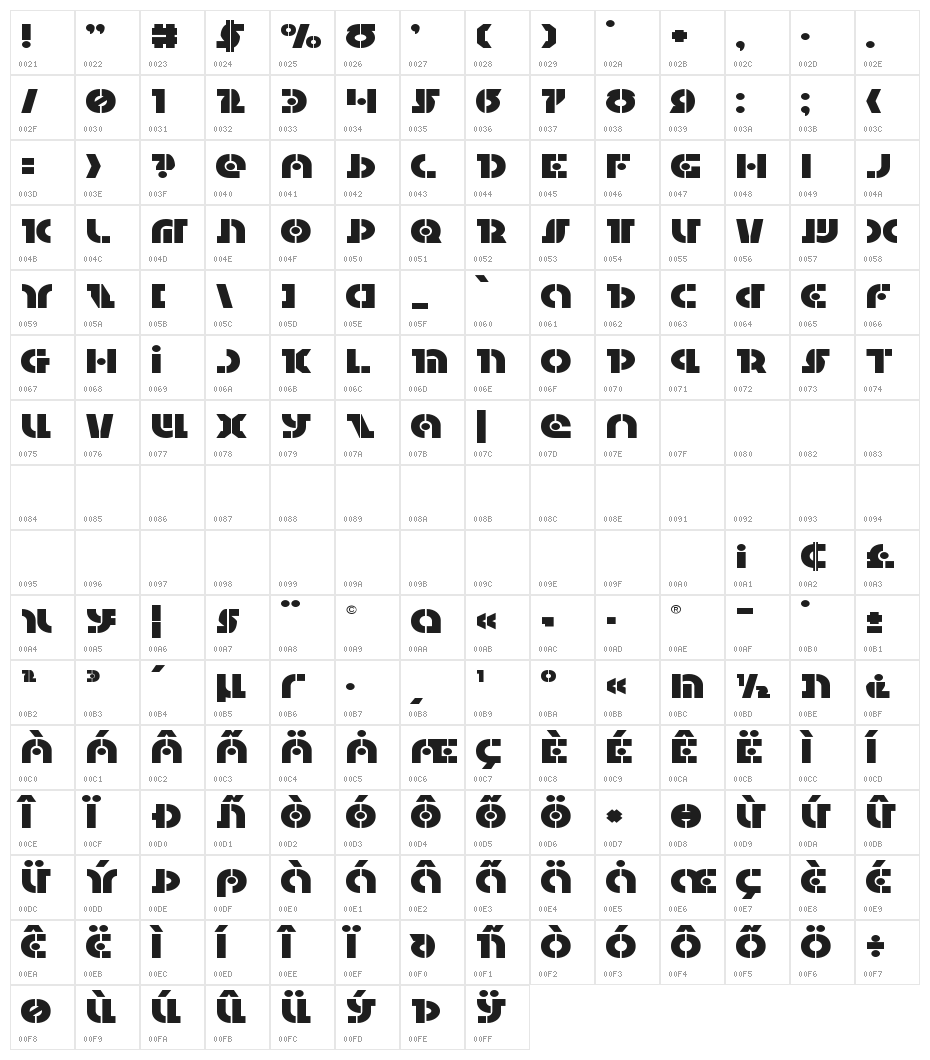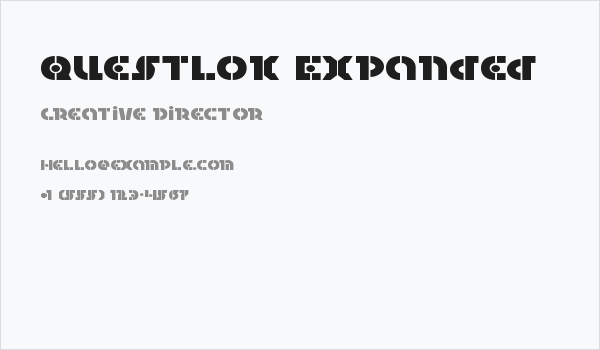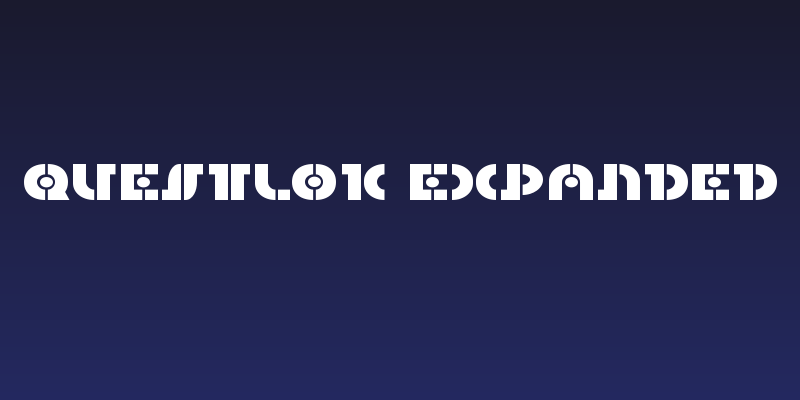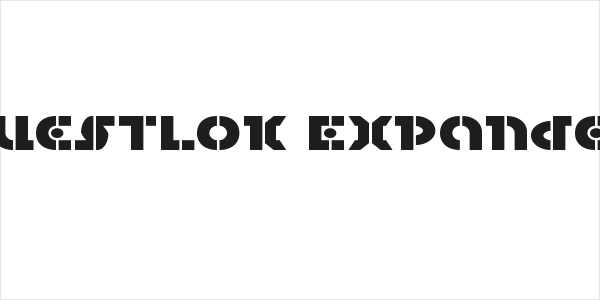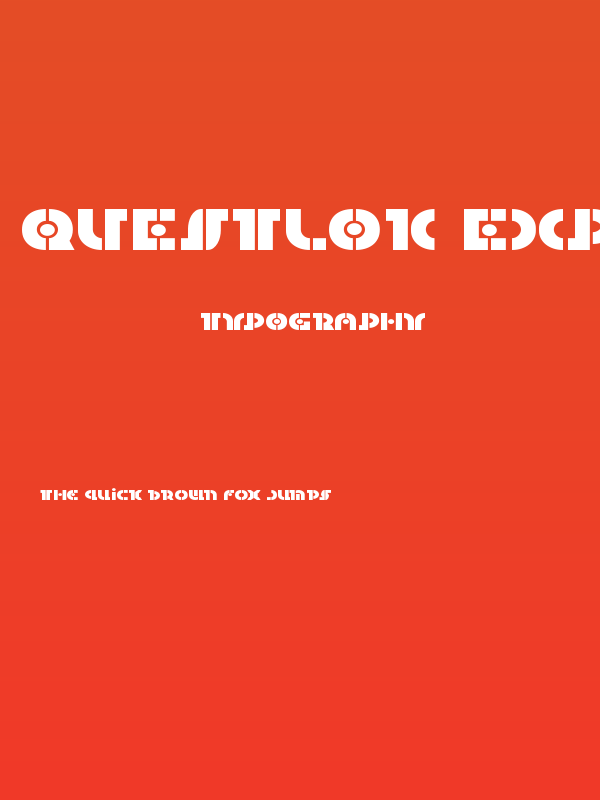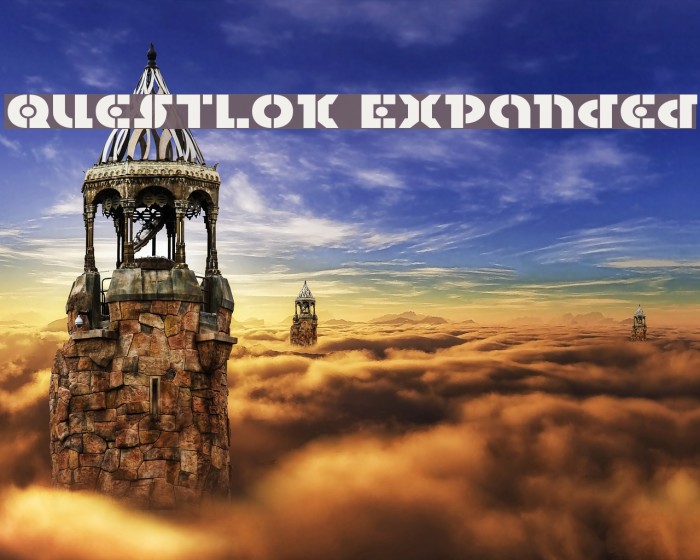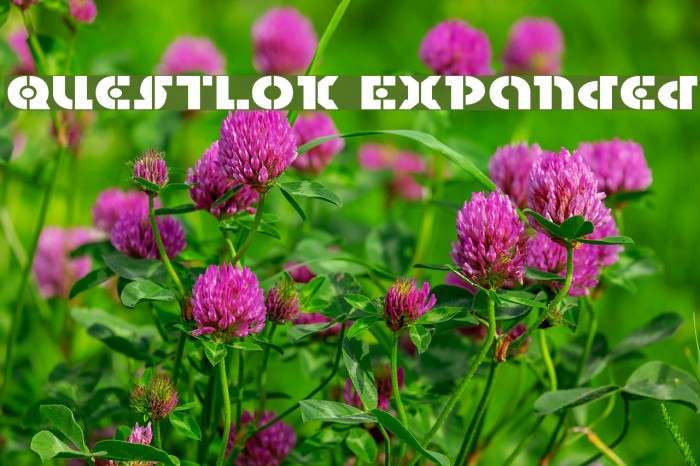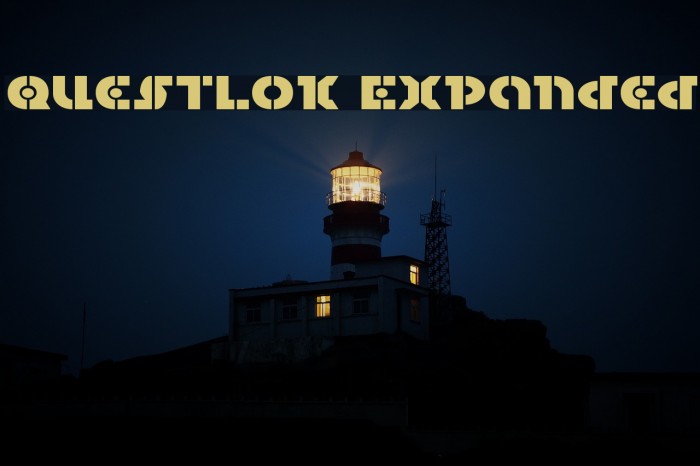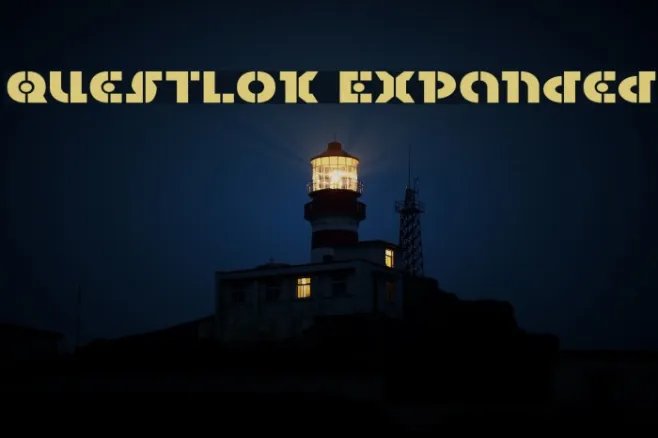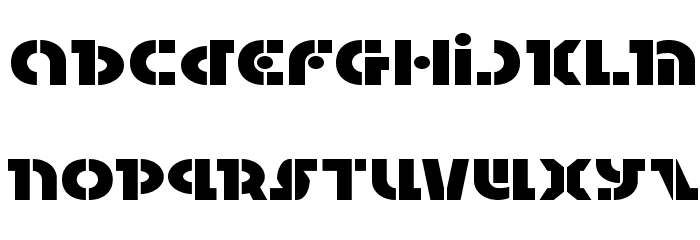
Questlok Expanded Font
Questlok Expanded Description
This font features a bold and geometric design with a futuristic flair. Each character is constructed with solid, block-like shapes, creating a sense of strength and modernity. The letters have a unique, segmented appearance, with some characters incorporating circular or angular cutouts that add visual interest and complexity. The overall style is eye-catching and dynamic, making it suitable for projects that require a strong visual impact. The font's expanded width and bold weight contribute to its commanding presence, while the consistent stroke thickness ensures readability.
| Proposed Projects | Ideal for branding, posters, headlines, and any design requiring a modern and impactful typeface. |